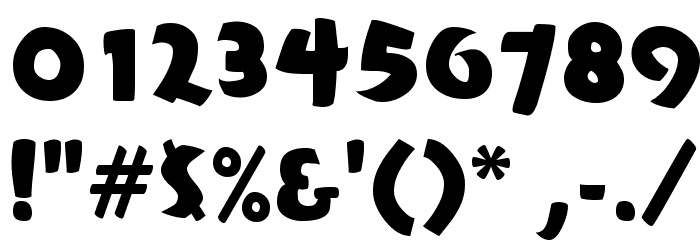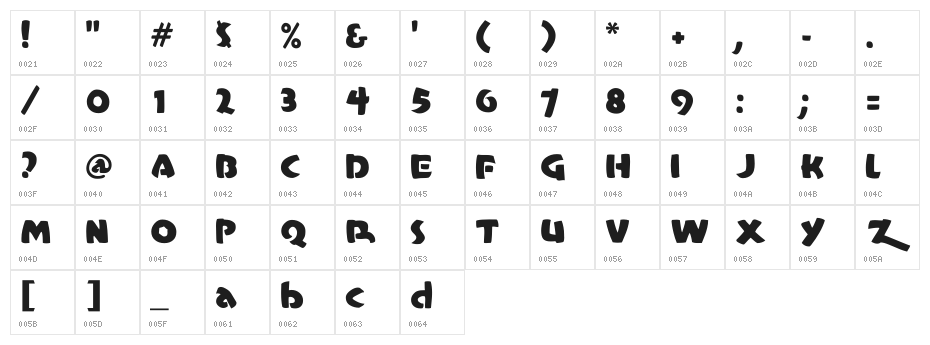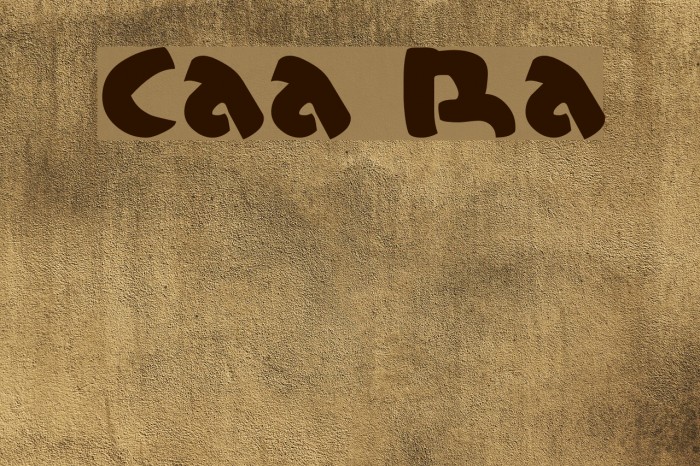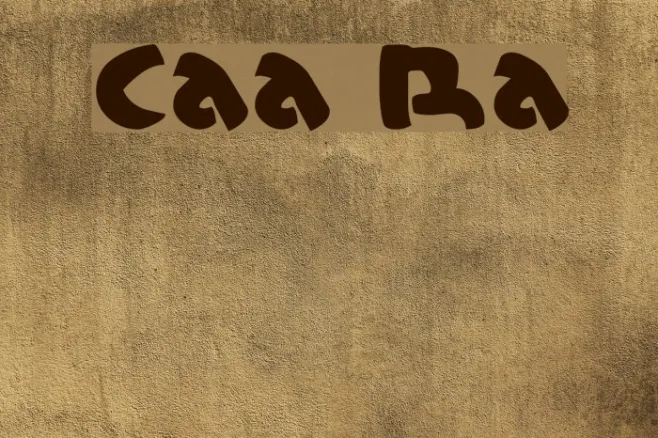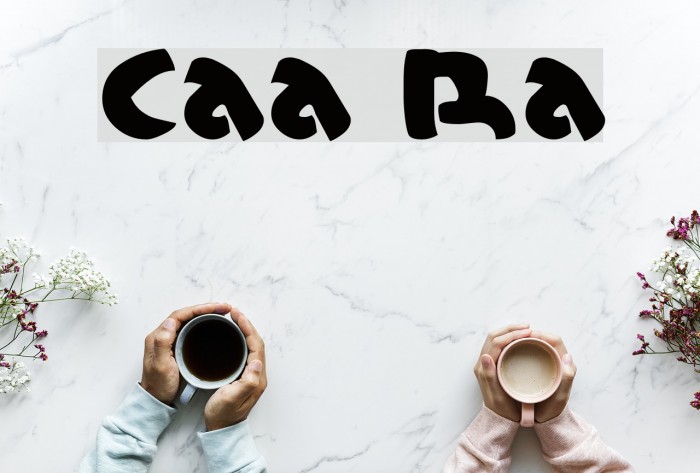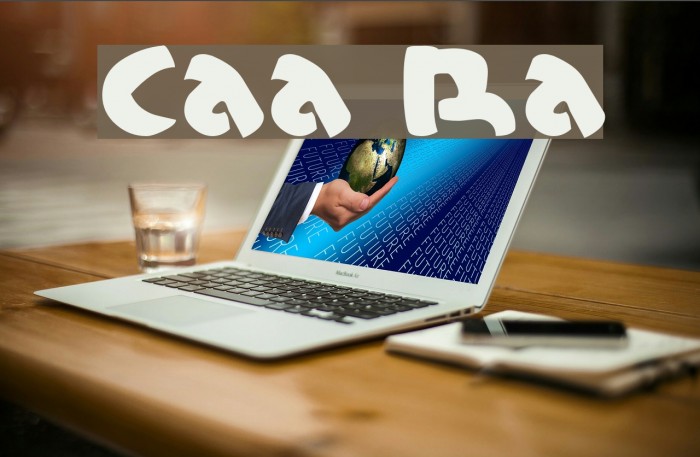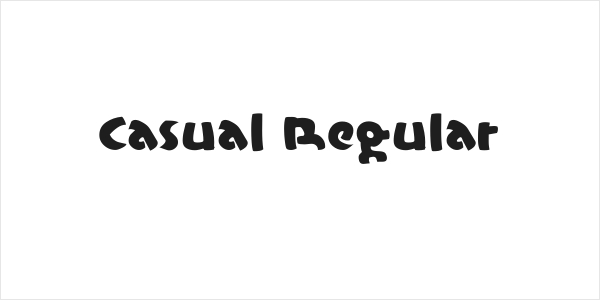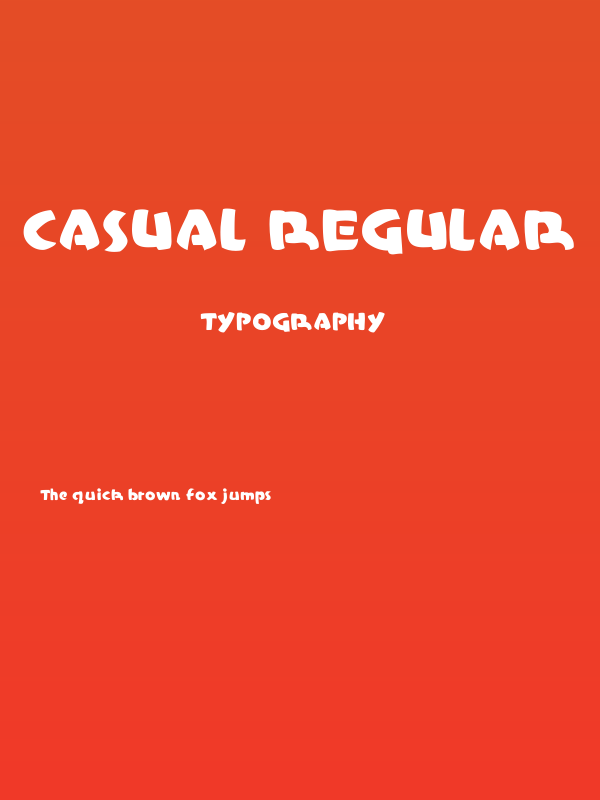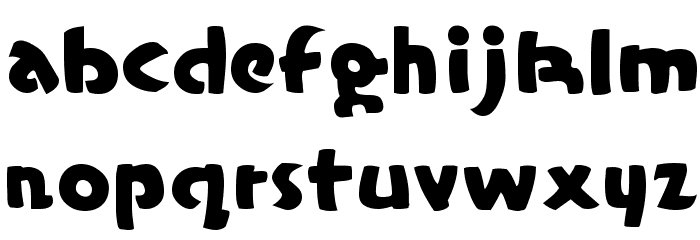
Casual Regular Font
Casual Regular Description
This font features a playful and informal style with bold, rounded characters that give it a friendly and approachable appearance. The letters have a slightly irregular shape, adding to the casual feel. The uppercase and lowercase letters maintain a consistent weight, while the numbers and special characters blend seamlessly with the overall design. The font's thick strokes and smooth curves make it highly legible, even at smaller sizes, and its unique character shapes add a touch of whimsy.
| Proposed Projects | Ideal for children's books, playful branding, casual invitations, and creative posters. |